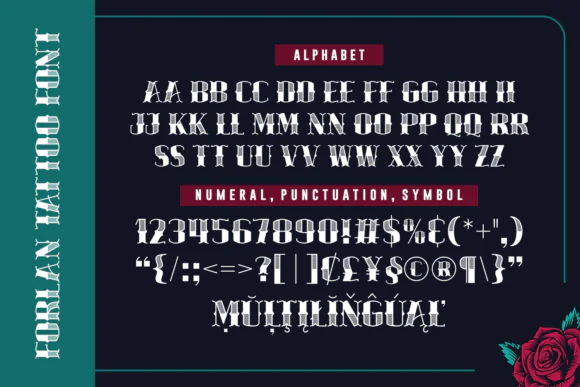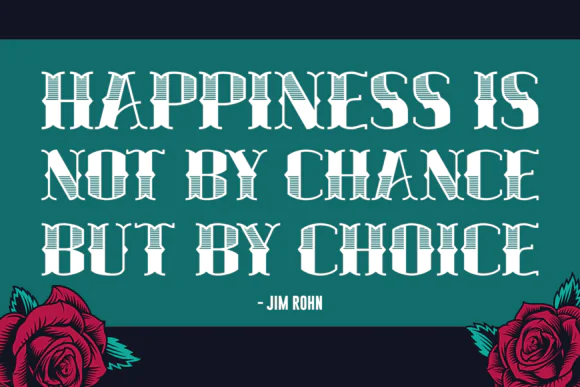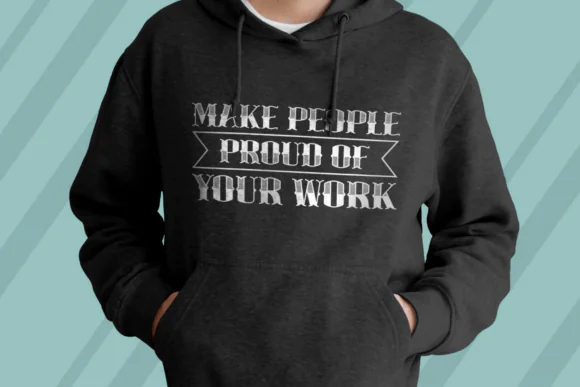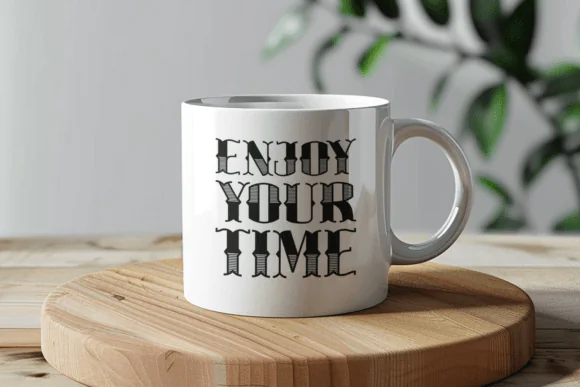
Create bold, timeless, and striking designs with Forlan Tattoo Font, an old-school blackletter font inspired by traditional tattoo lettering. With sharp angles, decorative details, and a strong classic appearance, this font is perfect for designs that need a powerful vintage gothic style.
Forlan Tattoo Font works beautifully for tattoo designs, gothic logos, apparel graphics, t-shirt prints, hoodie designs, posters, stickers, labels, product packaging, album covers, motorcycle-themed artwork, barbershop branding, streetwear graphics, wall art, and social media designs.
Its bold decorative blackletter style gives your typography a handcrafted, traditional, and edgy look. Whether you are creating tattoo-style artwork, vintage merchandise, masculine branding, or dramatic display text, Forlan Tattoo Font adds a confident and memorable visual impact.
Forlan Tattoo Font is a strong choice for designers, tattoo artists, crafters, and digital product sellers who want to create bold, classic, and professional-looking designs with traditional blackletter character.